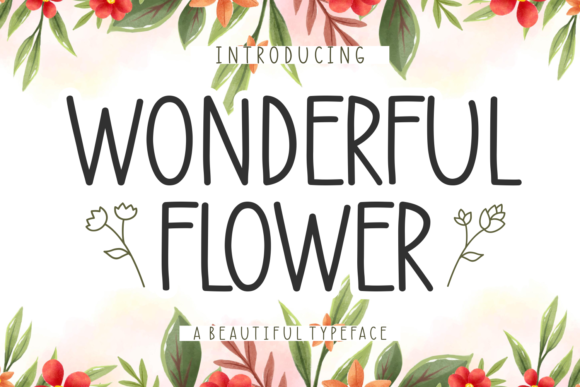
Dive into the realm of enchanting script fonts and discover the irresistible charm of Wonderful Flower Font, a creation of Dani (7NTypes). This captivating handwritten font exudes a delightful touch of playfulness and authenticity, making it the perfect choice for capturing the essence of chalkboard quotes, teaching materials, and any project yearning for a personal, down-to-earth charm.
Experience the allure of Wonderful Flower Font, a script font crafted with meticulous attention to detail. Its playful strokes and charming imperfections evoke a sense of nostalgia and warmth, captivating your audience with its inviting and approachable nature. Unleash your creativity and let your imagination flourish as you explore the endless possibilities of this delightful font.
Step into a world of visual storytelling with Wonderful Flower Font. Let your words come alive, imbued with the vibrant energy of this captivating script. Its authentic look adds a layer of realism and relatability to your designs, allowing your audience to connect with your message on a deeper level. Create designs that resonate with your audience and leave a lasting impression.
With Wonderful Flower Font, the possibilities are boundless. Elevate your packaging designs to new heights, creating products that demand attention on shelves and online. Craft social media posts that pop, capturing the attention of your target audience and leaving them eager to engage with your content. Unleash your creativity and explore the endless applications of this versatile script font, turning your design visions into reality.
Embrace the beauty of imperfection and let Wonderful Flower Font add a touch of whimsy to your creative endeavors. Its handwritten charm brings a sense of authenticity and relatability to your designs, making them stand out from the crowd. Watch as your audience falls in love with the unique personality of this captivating font, adding a layer of charm and delight to every project you undertake.